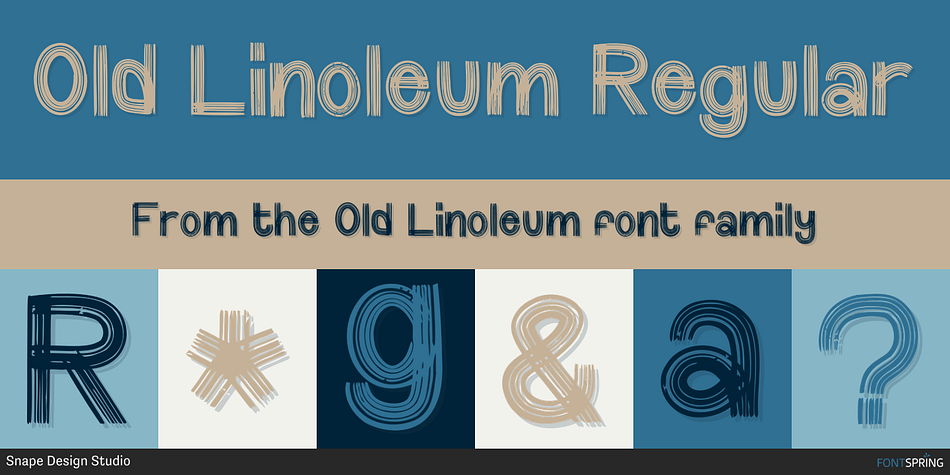
Old Linoleum Regular
Old Linoleum is a font family published by Snape Design Studio.
Old Linoleum is an incredibly interesting and simple display font. It has a chalked, vintage design, and its versatility makes it fit for a wide variety of creative ideas.
Great for vintage design, Invitation Card, Brochure, etc.